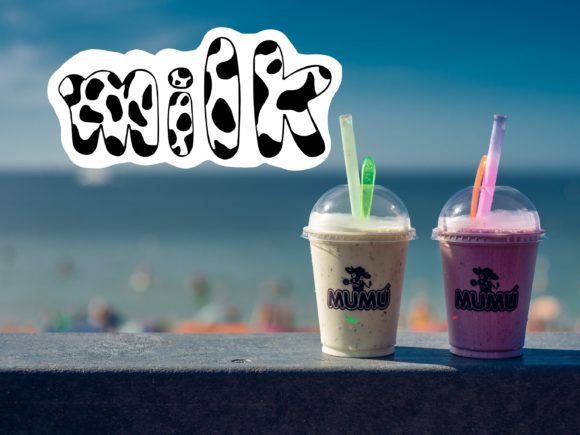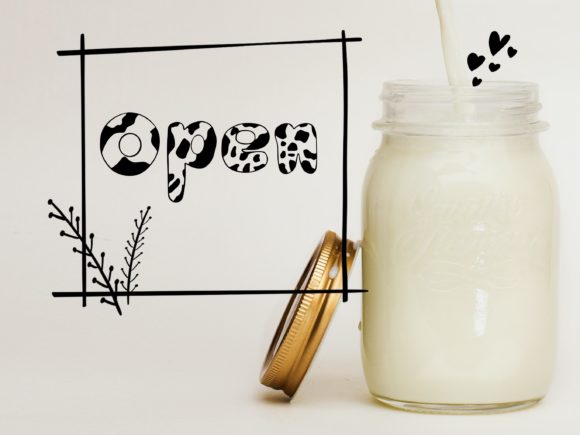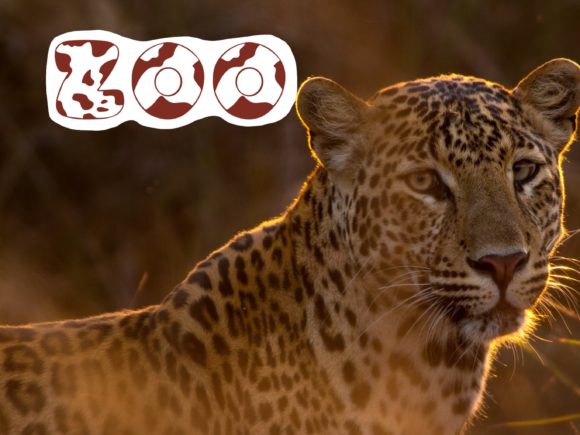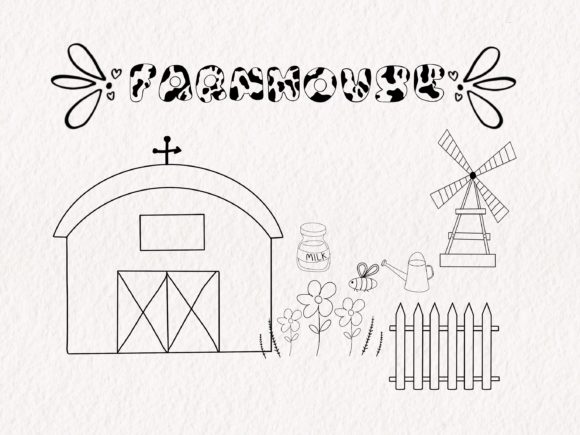
Introducing Farmhouse Font: The Perfect Choice for Playful and Authentic Designs
Are you a designer, crafter, or DIY enthusiast looking for a font that embodies playfulness and authenticity? Look no further than Farmhouse Font! This cool and friendly display font is perfect for any children activity or school project that requires a fun and approachable touch. In this article, we’ll dive into the world of Farmhouse Font, exploring its features, benefits, and uses, as well as provide tips and inspiration for incorporating it into your designs.
Farmhouse Font is a display font designed to evoke a sense of playfulness and authenticity. Its unique and charming letterforms make it perfect for use in a variety of design projects, from children’s activity sheets and school projects to crafts, DIY tutorials, and even branding and packaging.
One of the standout features of Farmhouse Font is its friendly and approachable feel. The font’s rounded edges and soft curves give it a warm and inviting appearance that’s sure to delight audiences of all ages. Whether you’re creating materials for kids or simply want to add a touch of whimsy to your designs, Farmhouse Font is an excellent choice.
So, what makes Farmhouse Font so special? Here are just a few of its key features:
• Playful and authentic feel: Farmhouse Font is designed to evoke a sense of playfulness and authenticity, making it perfect for designs that require a fun and approachable touch.
• Unique and charming letterforms: Each letter in Farmhouse Font has been carefully crafted to be unique and charming, adding to the font’s overall whimsical feel.
• Rounded edges and soft curves: The font’s rounded edges and soft curves give it a warm and inviting appearance that’s sure to delight audiences of all ages.
• Perfect for children and adults alike: Farmhouse Font is a versatile font that can be used in designs for both children and adults, making it a great addition to any design library.
Uses for Farmhouse Font
So, what can you use Farmhouse Font for? The possibilities are endless! Here are a few ideas to get you started:
• Children’s activity sheets: Farmhouse Font is perfect for creating fun and engaging activity sheets for kids, including coloring pages, word searches, and more.
• School projects: Add a touch of personality to school projects, such as posters, presentations, and reports, with Farmhouse Font.
• Crafts and DIY tutorials: Use Farmhouse Font to add a personal touch to craft and DIY tutorials, including patterns, instructions, and more.
• Branding and packaging: Farmhouse Font can also be used in branding and packaging design, adding a playful and authentic touch to product labels, packaging, and marketing materials.
Here are a few tips for getting the most out of Farmhouse Font:
• Use it sparingly: Farmhouse Font is a display font, so it’s best used sparingly to add emphasis and personality to your designs.
• Pair it with complementary fonts: Combine Farmhouse Font with complementary fonts to create visual interest and add depth to your designs.
• Experiment with colors and textures: Don’t be afraid to experiment with different colors and textures to add an extra layer of personality to your designs.
Farmhouse Font is a cool, friendly display font that’s perfect for any design project that requires a playful and authentic touch. With its unique and charming letterforms, rounded edges, and soft curves, it’s sure to delight audiences of all ages. Whether you’re a designer, crafter, or DIY enthusiast, Farmhouse Font is a great addition to any design library. So why not give it a try and see how it can add a touch of personality to your designs?